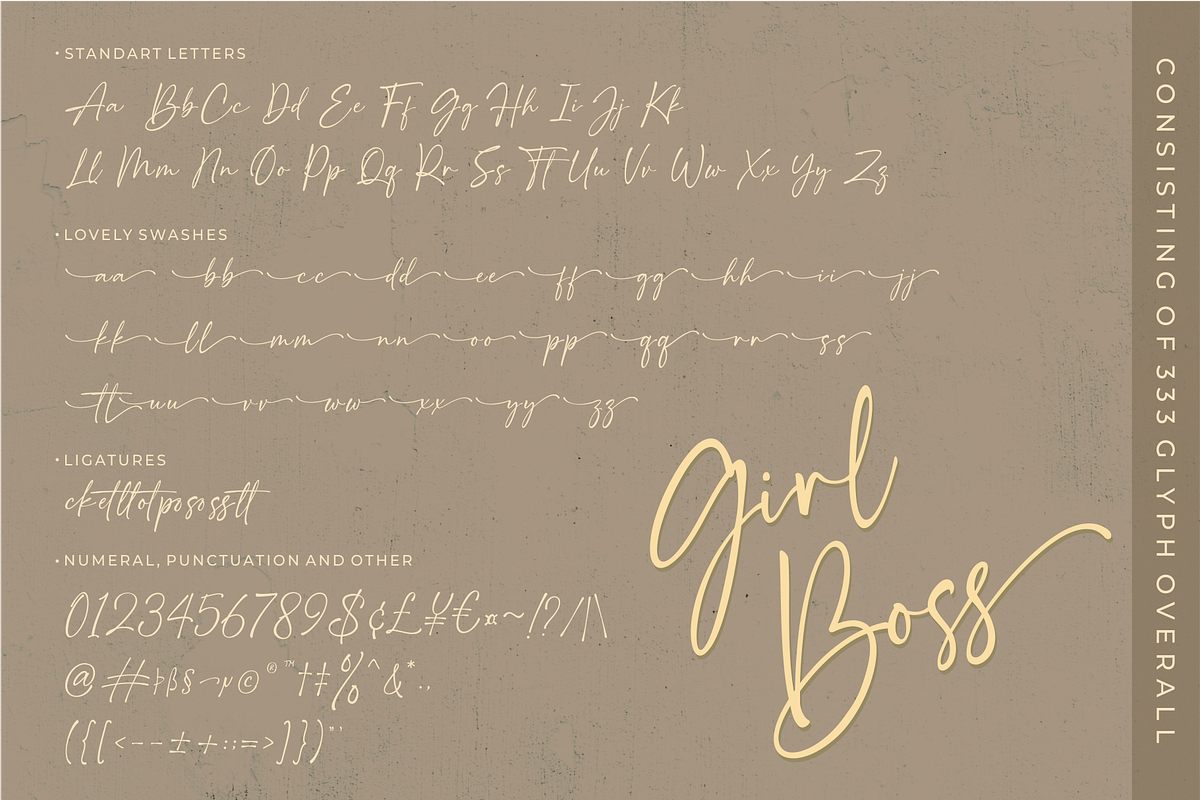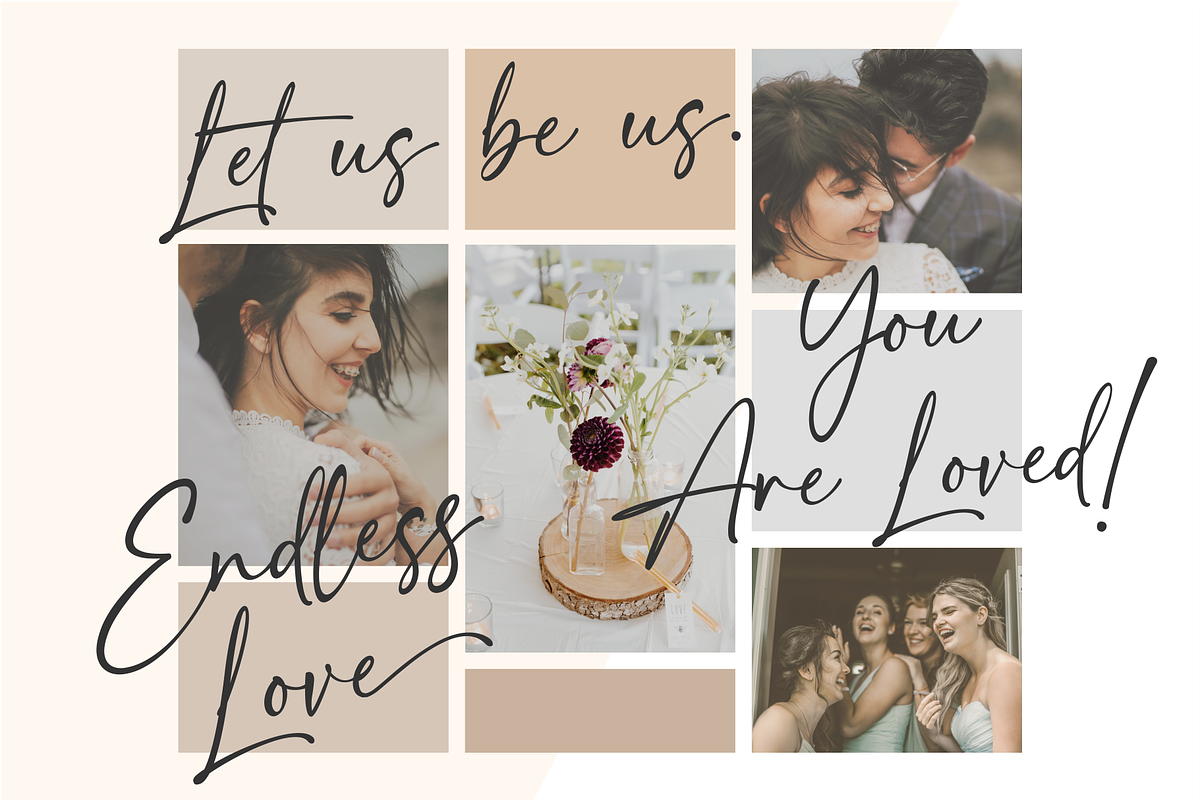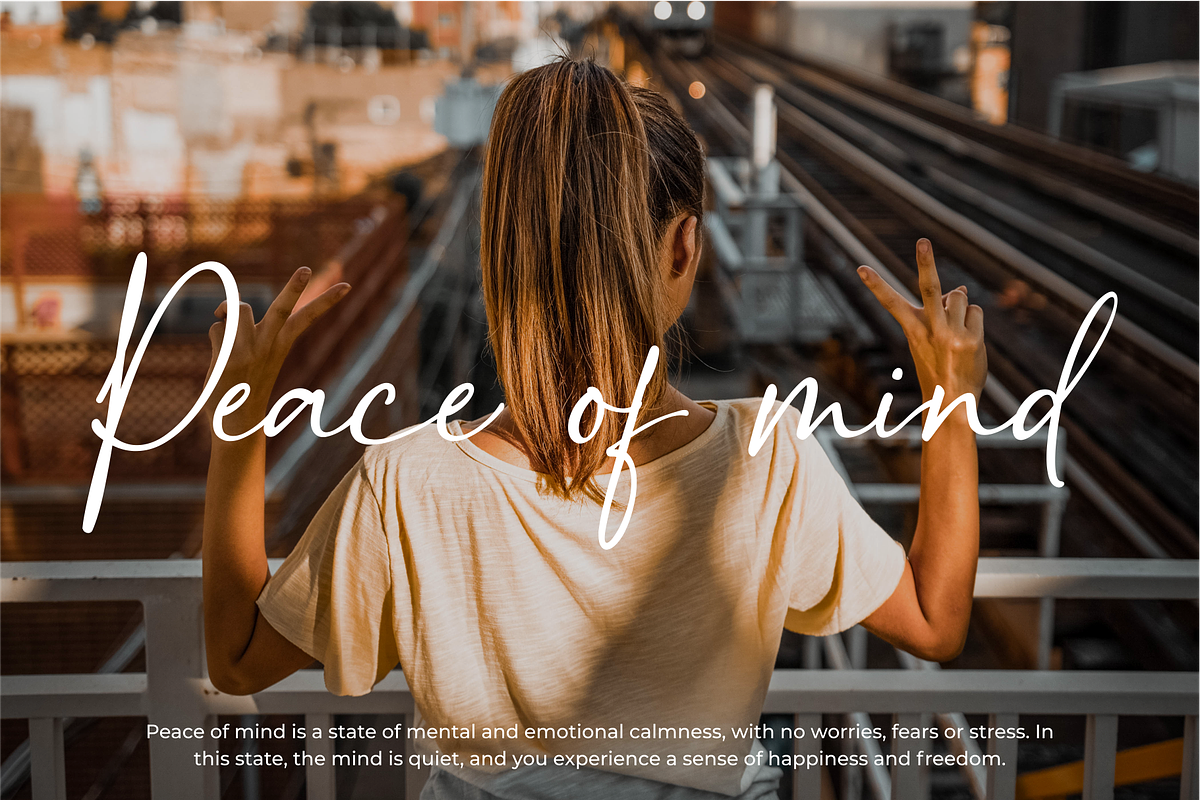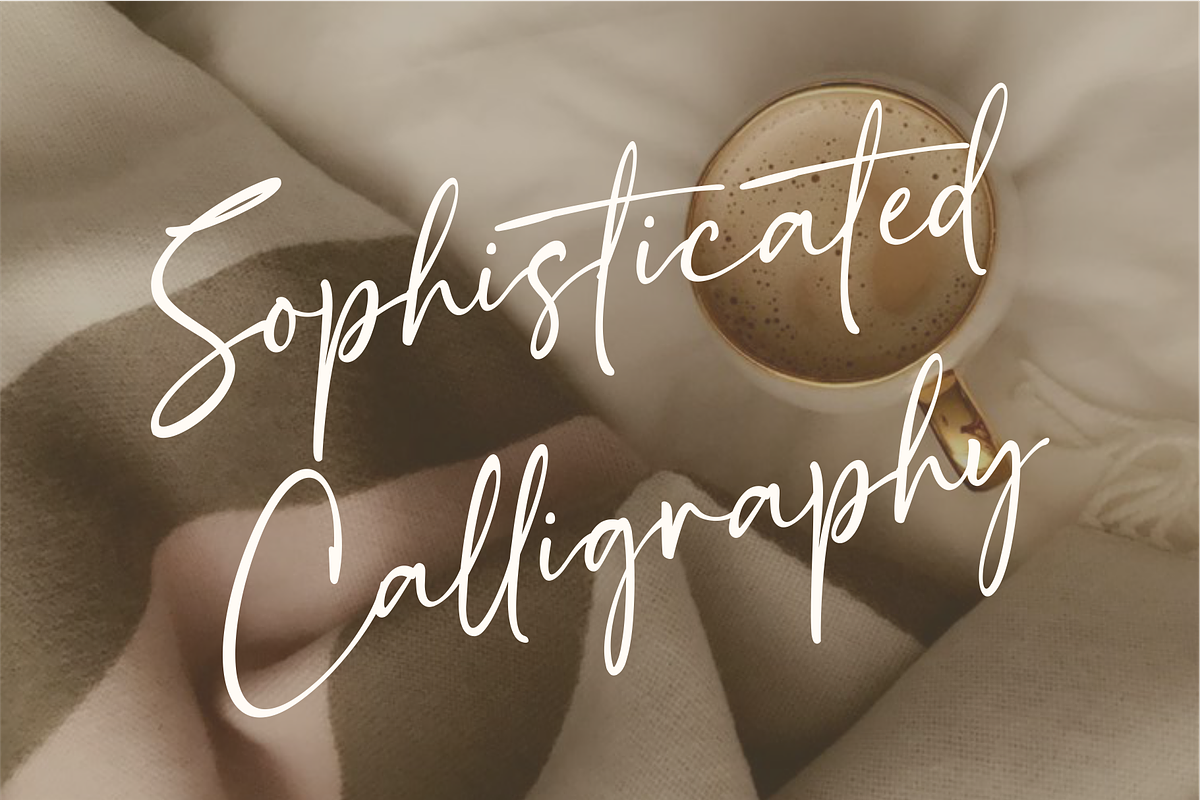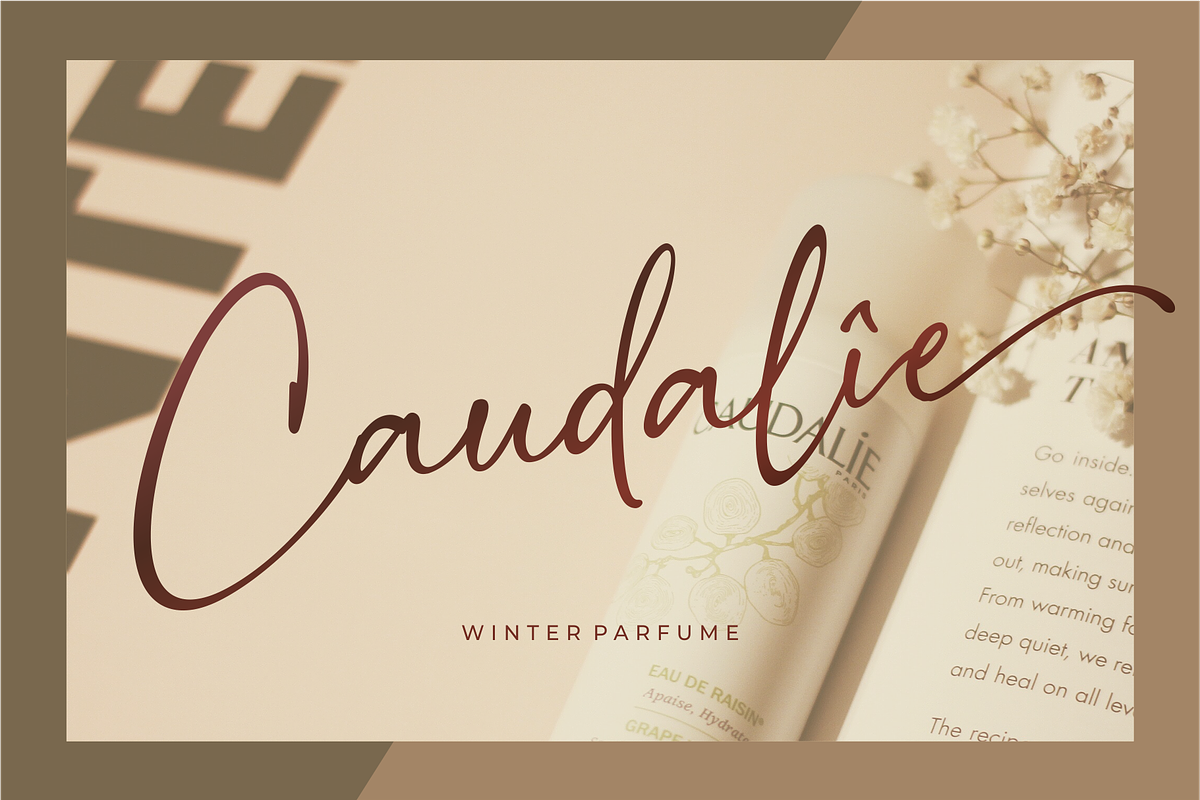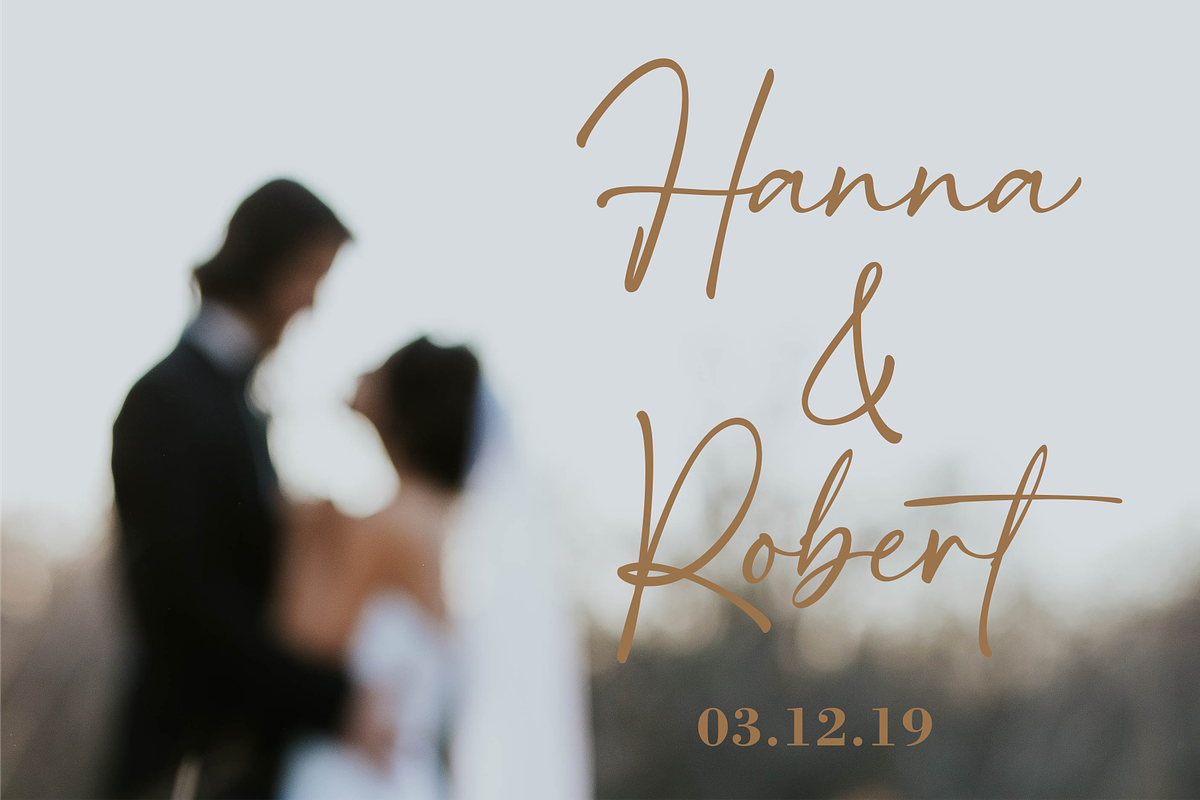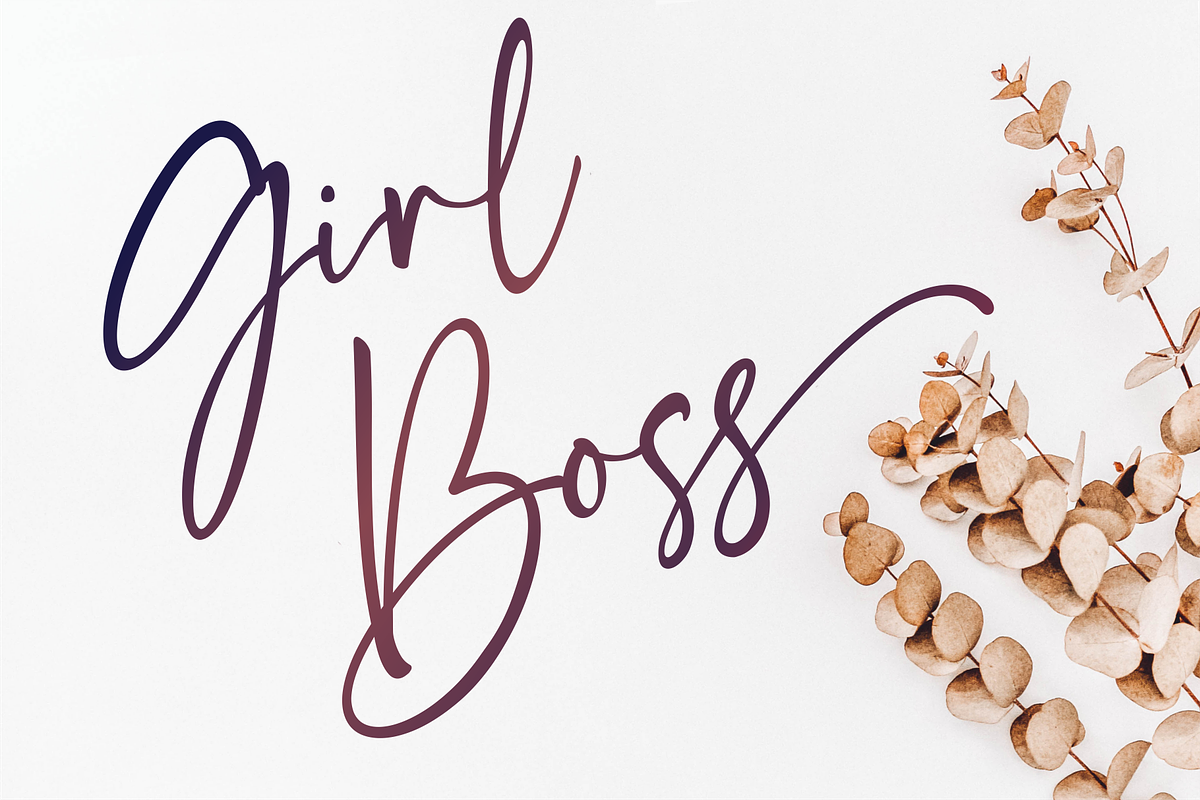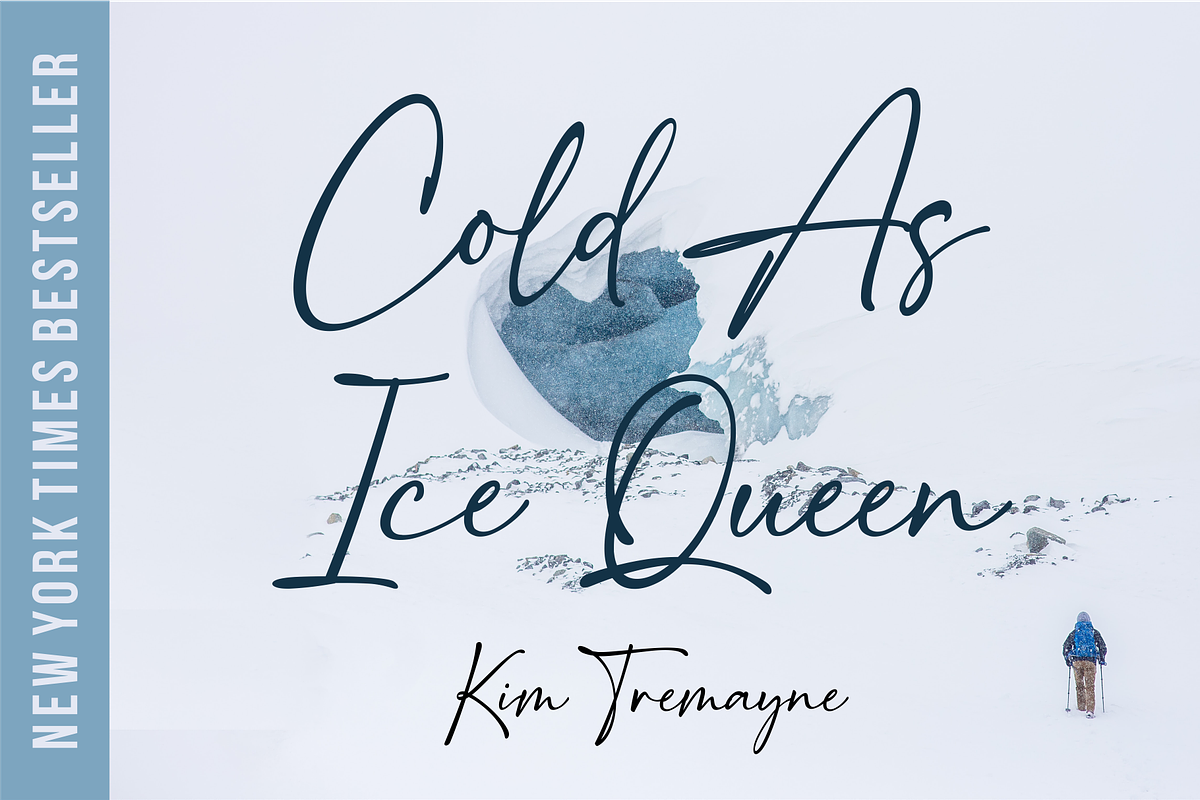
Girl Boss -Sophisticated Calligraphy
SUPER EASY TO USE!
Just add ++ before/after your typing. Or simply copy / paste this.
- ++lovely++
After receiving lots of feedback about difficulties accessing "swashes". We made several updates to make it easier for you to create more and also improve the dimensions of this font to be more perfect.
Hey lady! if you believe in your own strength, you're Girl Boss! This calligraphy harmony gives the impression of being luxurious, free and sophisticated.
Girl Boss contains opentype features such as stylistic alternates, swashes & ligatures. Perfect for logo, printed quotes, badges, insignia, packaging, headline, poster, t-shirt / apparel, greeting card, and wedding invitation, & etc